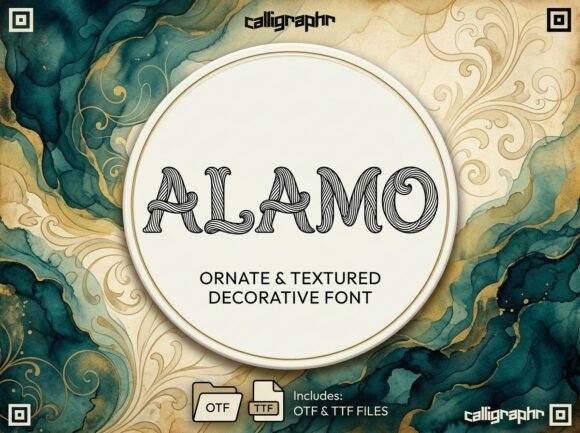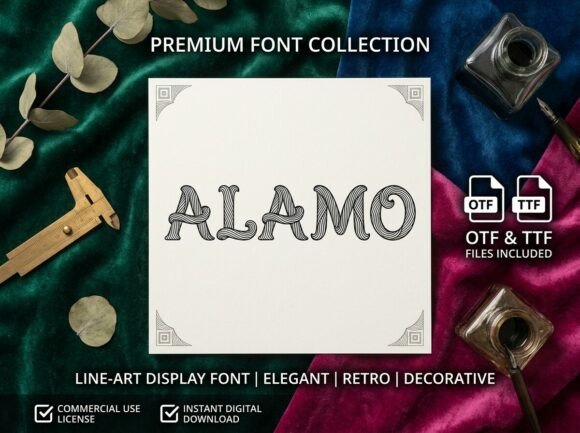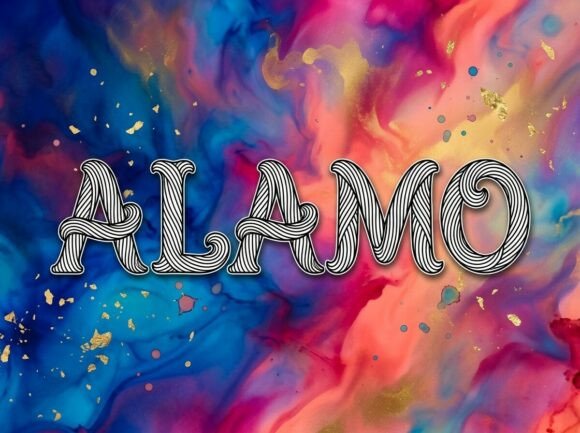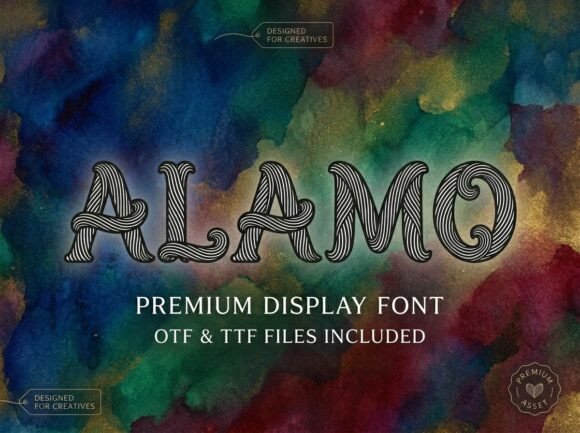
The Elusive Font: A Designer’s Quest for Timeless Elegance
I still remember the countless hours I spent scrolling through font libraries, searching for the perfect typeface for a client’s luxury branding project. The brief was simple: create a sophisticated, high-end look that exuded elegance and refinement. But, as we all know, finding that perfect font can be like searching for a needle in a haystack. That’s when I stumbled upon Alamo, a mesmerizing display typeface that instantly captured my attention.
Introducing Alamo: A Masterclass in Elegance
Alamo is more than just a font – it’s an experience. With its classic, high-contrast letterforms and intricate internal texture of rhythmic, hand-drawn “corded” lines and fluid, overlapping loops, this typeface seamlessly bridges the gap between vintage engravings and modern luxury branding. Its medium structural weight and artistic personality make it the perfect choice for independent boutique winery identities, high-end artisanal packaging, creative editorial headers, and high-impact social media content.
- ✨ Elegant and refined: Alamo’s sophisticated design makes it perfect for luxury branding and high-end projects.
- ✅ Highly versatile: From editorial headers to social media content, Alamo adapts seamlessly to various design applications.
- 💡 Intricate details: The font’s hand-drawn texture and fluid loops add a level of depth and visual interest to any design.
Small Quirks and Limitations:
While Alamo is an exceptional font, it’s not without its quirks. For instance, ⚠️ some characters may require manual kerning to achieve optimal spacing. Additionally, 🤔 the font’s intricate details may not render well at smaller sizes, so it’s best used at larger sizes (24pt+).
The Designer Inspiration: A Story of Timeless Elegance
Alamo’s design inspiration stems from the classic engravings of the American West. Imagine a skilled artisan, painstakingly crafting each letter by hand, infusing the font with a sense of history and sophistication. This attention to detail and commitment to craftsmanship is evident in every aspect of Alamo’s design.
Q: What is the best use case for Alamo?
A: Alamo is ideal for luxury branding, high-end packaging, editorial headers, and social media content where a sophisticated, elegant look is desired.
Q: Is Alamo suitable for body text?
A: While Alamo is a beautiful font, its intricate details and high-contrast design make it better suited for display use (24pt+). For body text, consider a more straightforward, legible font.